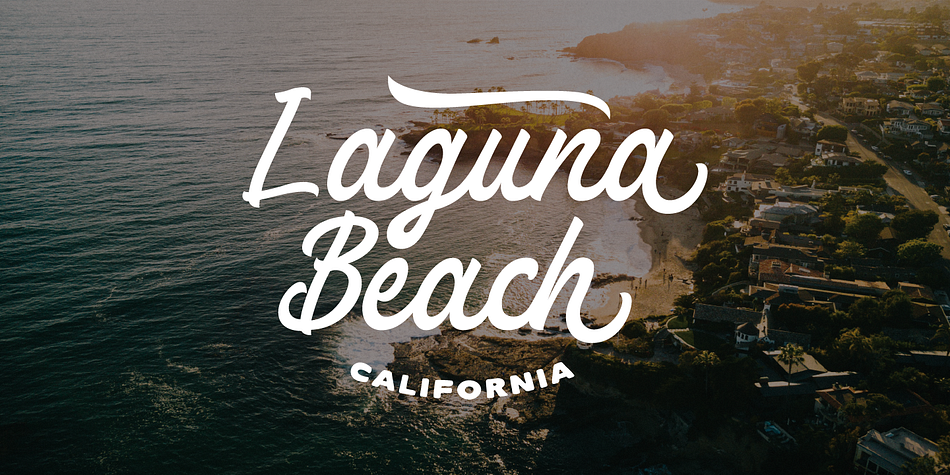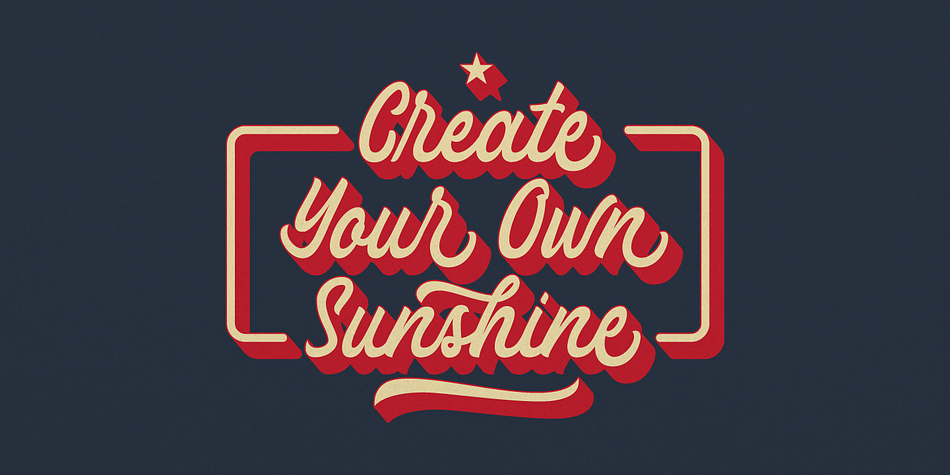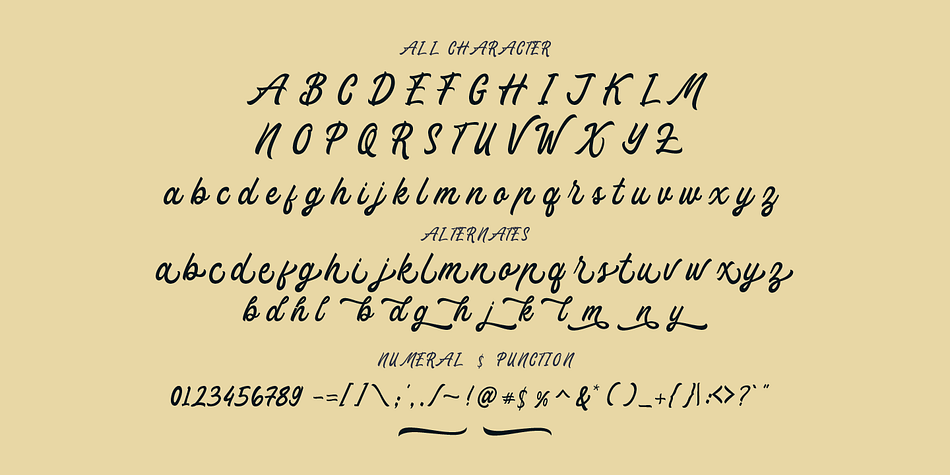
Estudiar
Designed by Hendry Juanda, Estudiar is a brush script, retro and script font family published by Letterhend Studio.
Estudiar Script is a natural handwritten made script which is suitable for you who needs a typeface for headline, logotype, apparel, invitation, branding, packaging, advertising etc. This typeface is comes in uppercase, lowercase, punctuations, symbols & numerals, stylistic set alternate, ligatures, etc also support multilingual and already PUA encoded.
- uppercase & lowercase
- numbers and punctuation
- Ligatures & Alternates
- multilingual